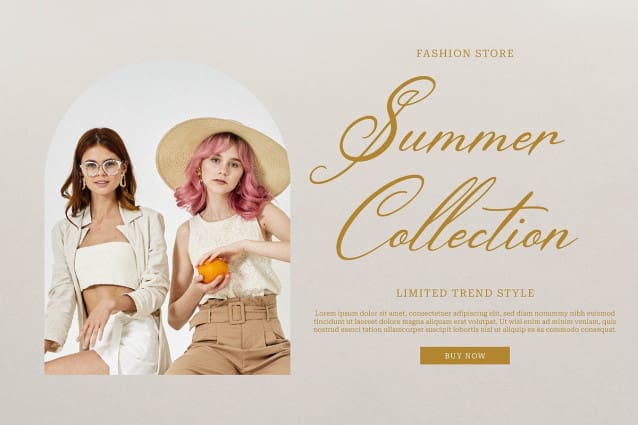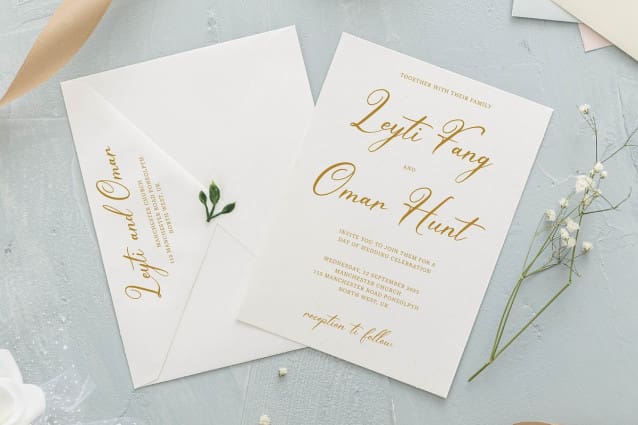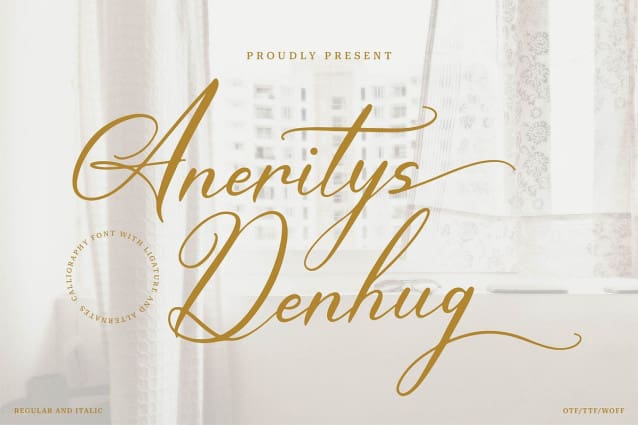
Aneritys Denhug Font
Aneritys Denhug Font | Calligraphy Font, from Denustudios, suitable for any projects such as: logos, branding projects, homeware designs, product packaging, mugs, quotes, posters, shopping bags, t-shirts, book covers, name card, invitation cards, greeting cards, label, photography, watermark, special events, and all your other lovely projects that need a Calligraphy Font taste.